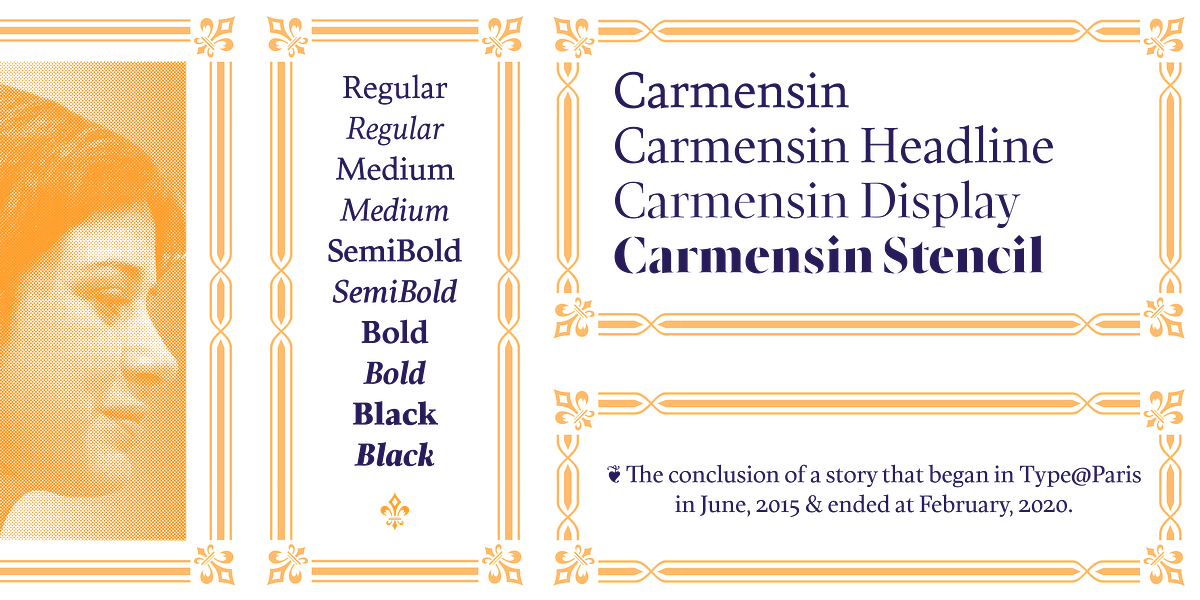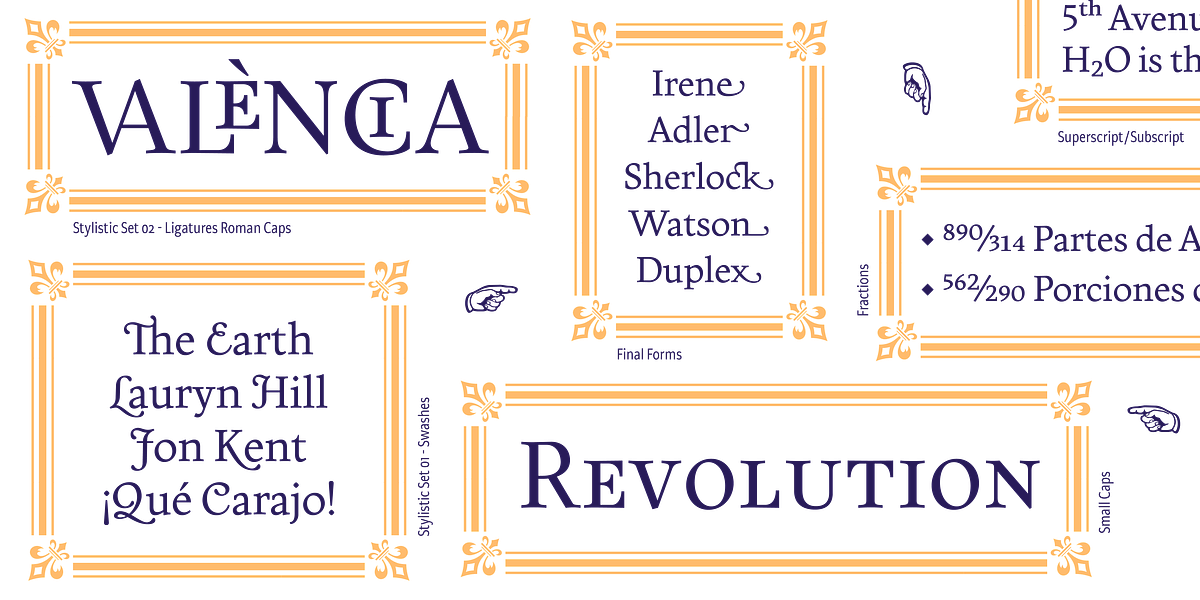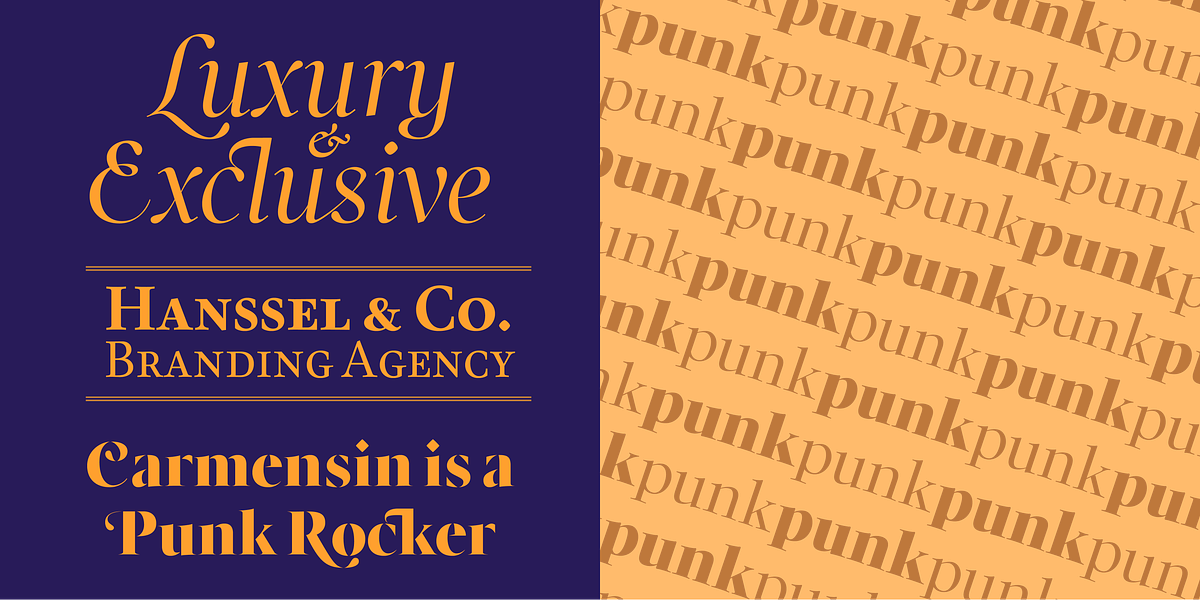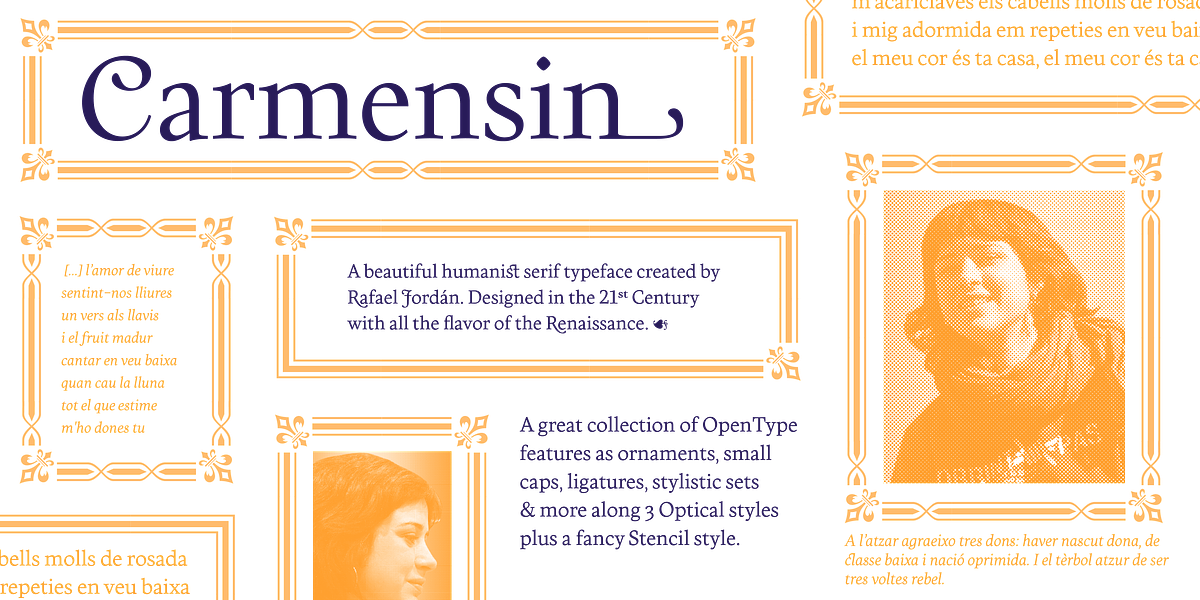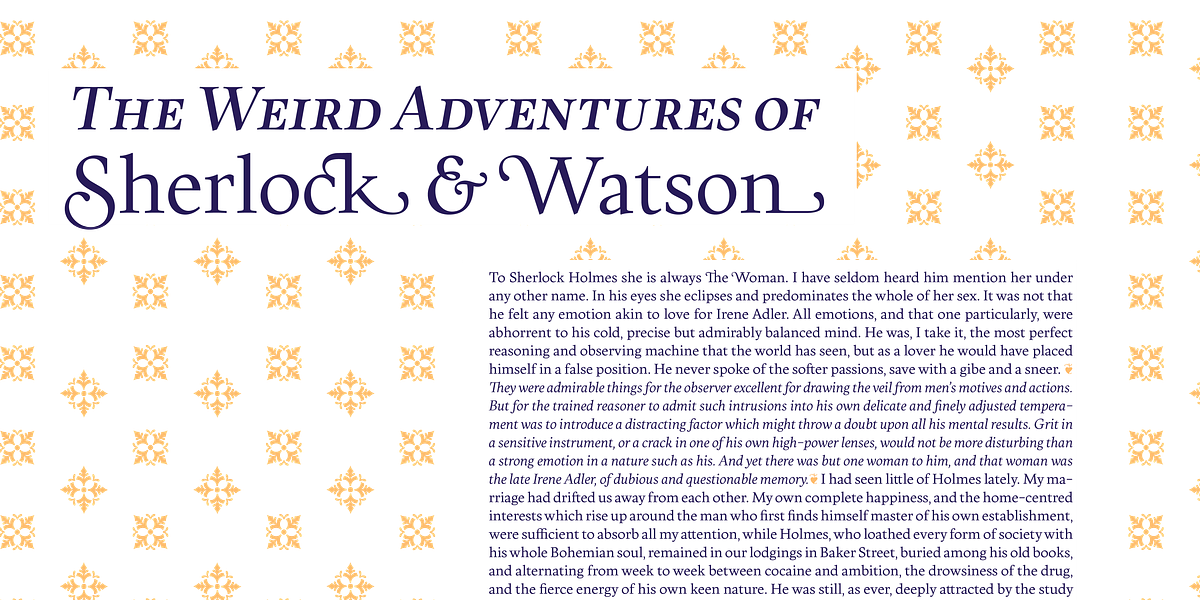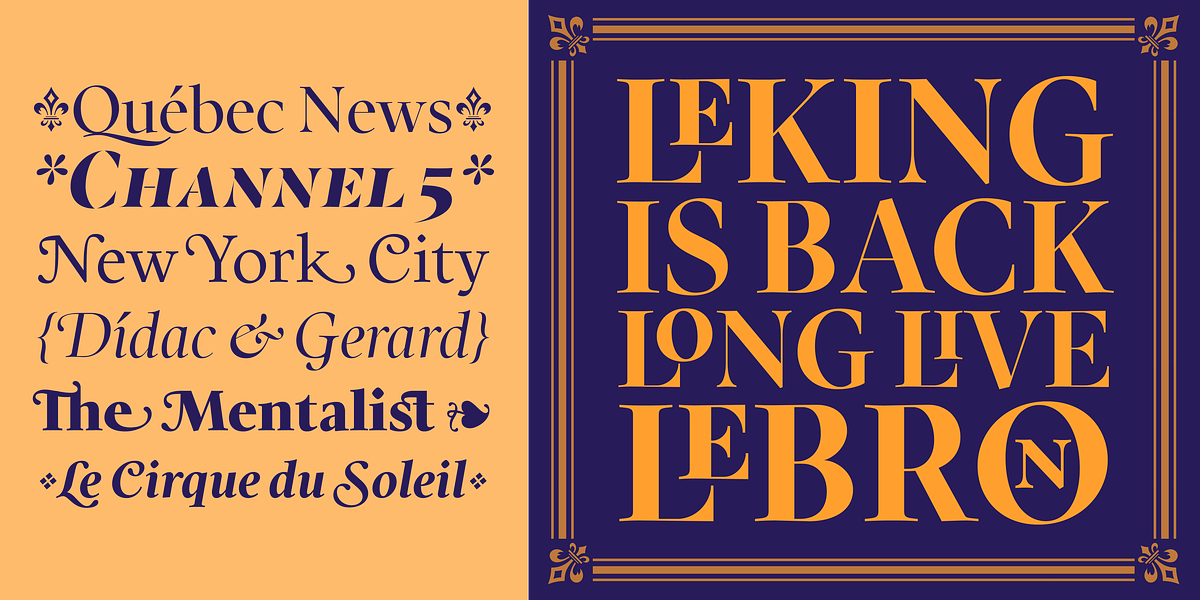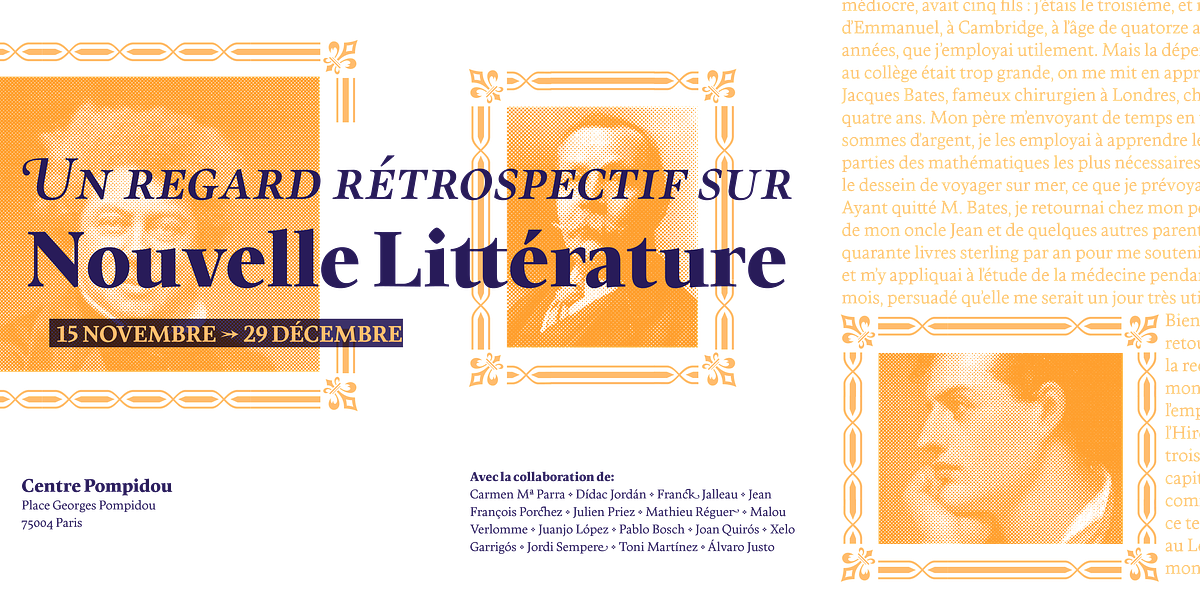
Carmensin
Carmensin is a humanist serif typeface designed by Rafael Jordán. Inspired by Renaissance models, it features smooth curves, a large x-height, and open counters. The font family includes three optical styles: Text, Headline, and Display, as well as a Stencil style. Carmensin supports an extensive Latin character set and includes OpenType features such as ornaments, ligatures, stylistic sets, small caps, and automatic fractions.